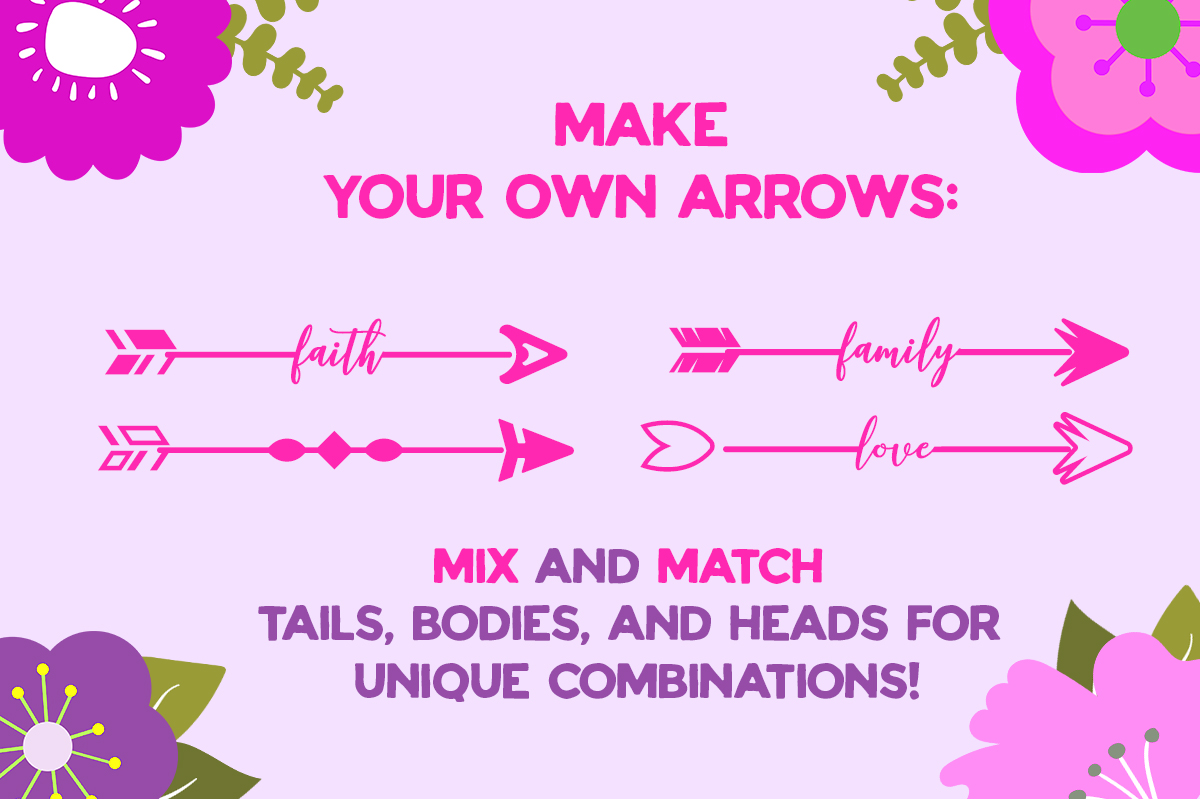
Arrow Love Dingbat Font
About Arrow Love Dingbat Font
Introducing the Arrow Love Dingbat: Create Your Own Arrows with Endless Possibilities!
Are you searching for a versatile and customizable dingbat set to elevate your design projects? Look no further than the Arrow Love Dingbat! This unique collection allows you to create your very own arrows with over 3000 possible combinations. With 15 arrow heads, 15 tails, and 15 body variations at your disposal, the creative possibilities are truly endless.
The Arrow Love Dingbat is designed to empower you with the freedom to design arrows that perfectly suit your vision. Whether you need arrows for signage, graphic elements, web design, or any other project, this dingbat set has got you covered. You can easily mix and match the various components to create arrows that convey the exact style and message you desire.
One of the standout features of the Arrow Love Dingbat is its extensive selection of arrow heads, tails, and bodies. The set offers a diverse range of options, including sharp-pointed heads, curved tails, straight bodies, and everything in between. This variety ensures that you can create arrows that align with your design aesthetic and effectively communicate your intended message.
Using the Arrow Love Dingbat is both intuitive and efficient. The dingbat set is provided in a user-friendly format, making it easy to access and utilize the different components. By simply typing specific characters on your keyboard, you can swiftly navigate through the collection and assemble the arrow design of your choice. The organized structure of the dingbat set allows for a seamless and hassle-free design process.
The customization options offered by the Arrow Love Dingbat are not limited to the individual components alone. You can also experiment with combining different elements to achieve unique and eye-catching arrow designs. Mix and match arrow heads, tails, and bodies to create arrows that reflect your personal style and enhance the visual impact of your projects.
The versatility of the Arrow Love Dingbat extends to various design contexts. Whether you’re working on print materials, digital graphics, presentations, or any other creative endeavor, these customizable arrows will come in handy. From adding directional cues in infographics to creating decorative elements in branding projects, the Arrow Love Dingbat offers a solution for every arrow-related need.
With the Arrow Love Dingbat, you no longer have to settle for generic arrows. Take control of your designs and unleash your creativity with the ability to customize arrows that are unique to your projects. Experience the joy of crafting arrows that perfectly complement your overall design concept and capture the attention of your audience.
In conclusion, the Arrow Love Dingbat is a must-have tool for designers and creatives seeking to add a personal touch to their arrow designs. With its vast selection of arrow heads, tails, and bodies, this dingbat set allows for over 3000 possible combinations. Explore the endless possibilities, create visually stunning arrows, and elevate your design projects with the Arrow Love Dingbat.